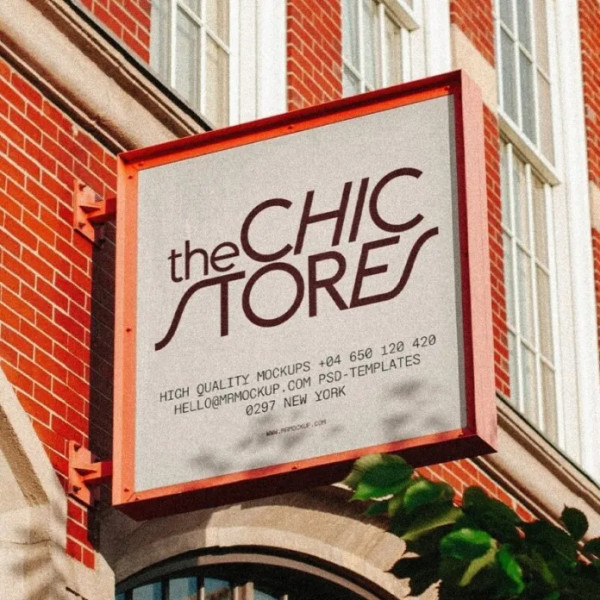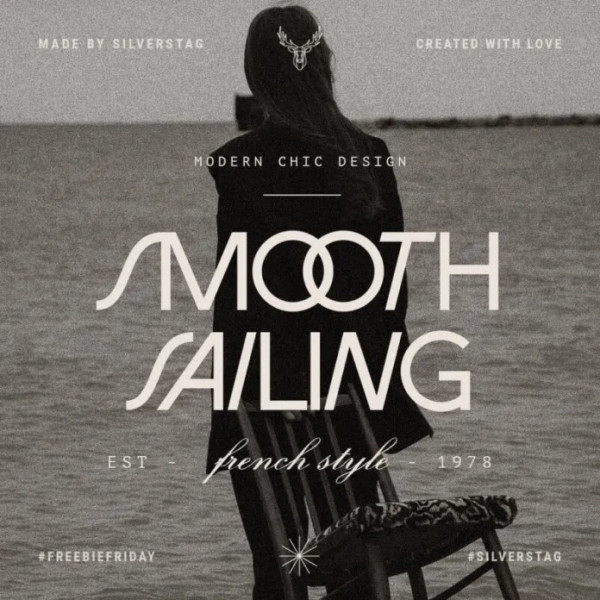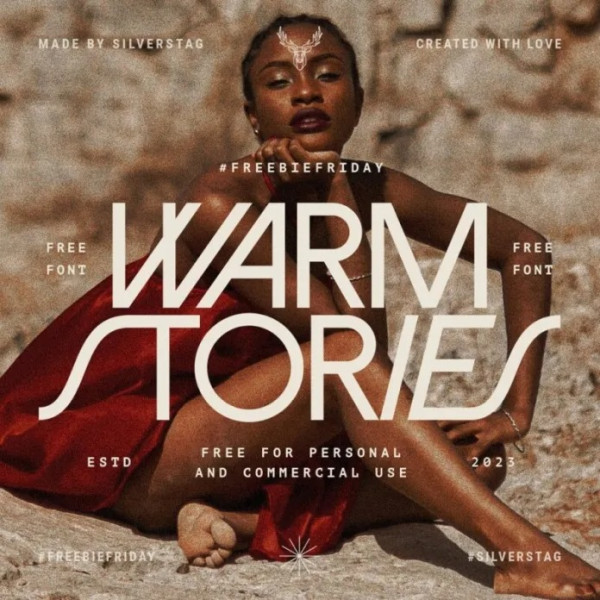
Warm Stories Font
Warm Stories Font is a modern sans serif typefaces inspired by carefree, warm summer days. With sleek and clean lines, it brings a sense of warmth, sunlight, and relaxation to any project. The font embodies the vibrant colors of a summer sunset, radiating a positive and inviting energy.
WARM STORIES is perfect for conveying a lighthearted and carefree vibe, making it ideal for various summer-themed designs. Whether you’re working on vacation brochures, beach party invitations, or travel blog headers, this font adds a touch of elegance while maintaining a sense of playfulness.
With its graceful curves and subtle nods to nature, WARM STORIES embodies the feeling of a refreshing breeze on a sunny day. The letters flow seamlessly, reflecting the carefree spirit of summer. The inclusion of the letter ‘S’ in the font’s name represents the sun’s rays, infusing a sense of brightness and joy into each character.
Whether you’re designing for Pride Month, a summer festival, or simply want to bring a sunny atmosphere to your creative projects, WARM STORIES is the perfect typographic choice. Its versatility and unique style will leave a lasting impression, inviting viewers to embrace the warmth and beauty of the season.